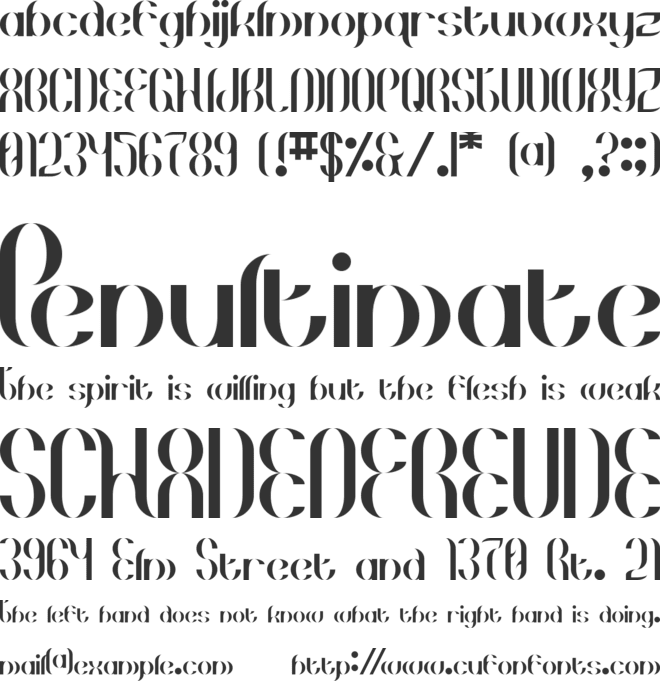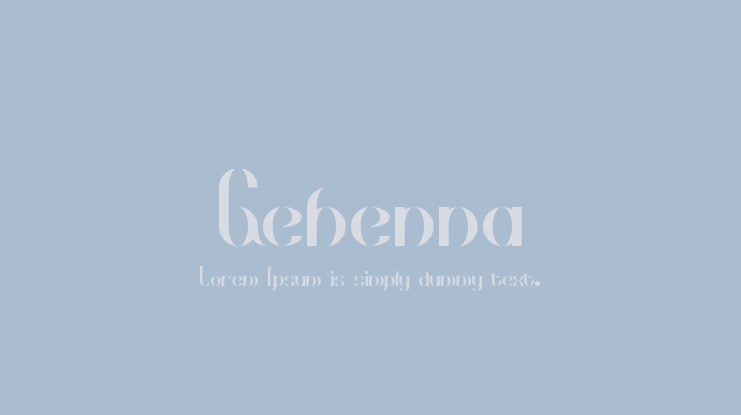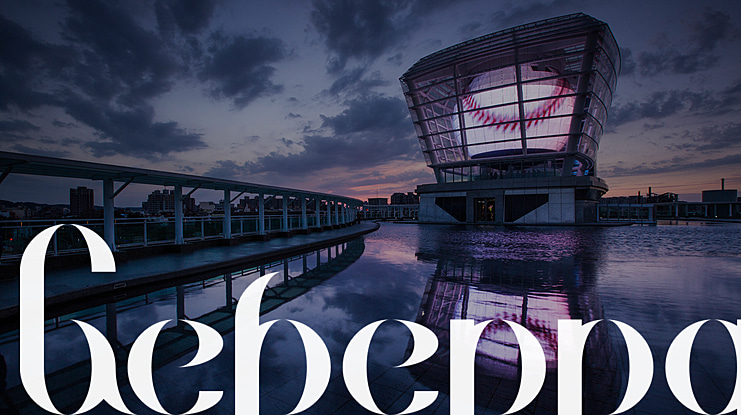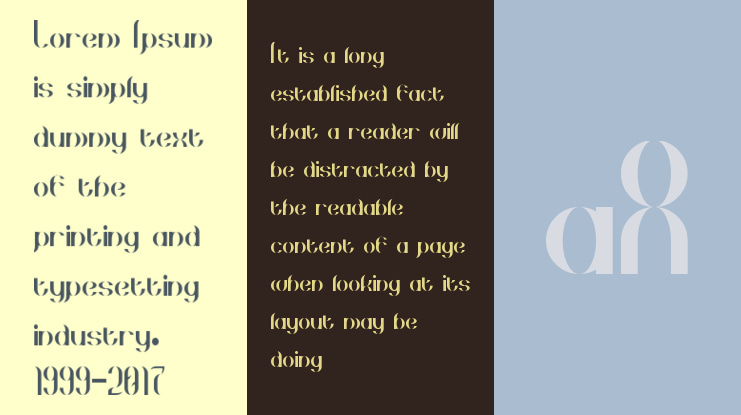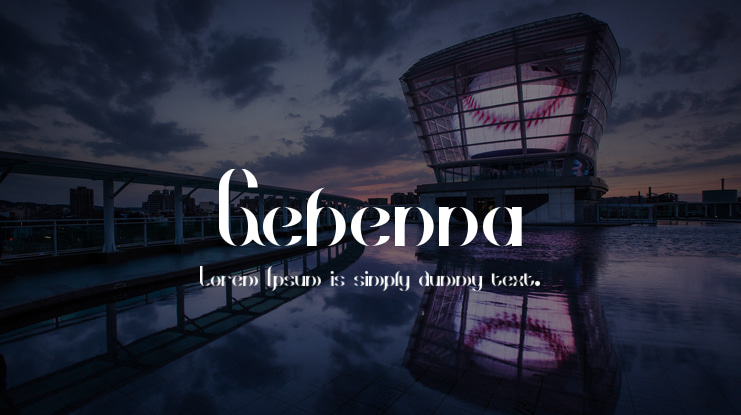
Gehenna Font
Experimental brush/pen thing. Has a slightly spooky look to it.
This is an attempt to make the "claw" bricks (as I call them) into an entire font. Because of their tapering curves, many glyphs can render with a "split" or "stencil" look about them. This is due to software-imposed limitations on vector rendering. Using a different software may help, as may surrounding the text with a 1px stroke line.